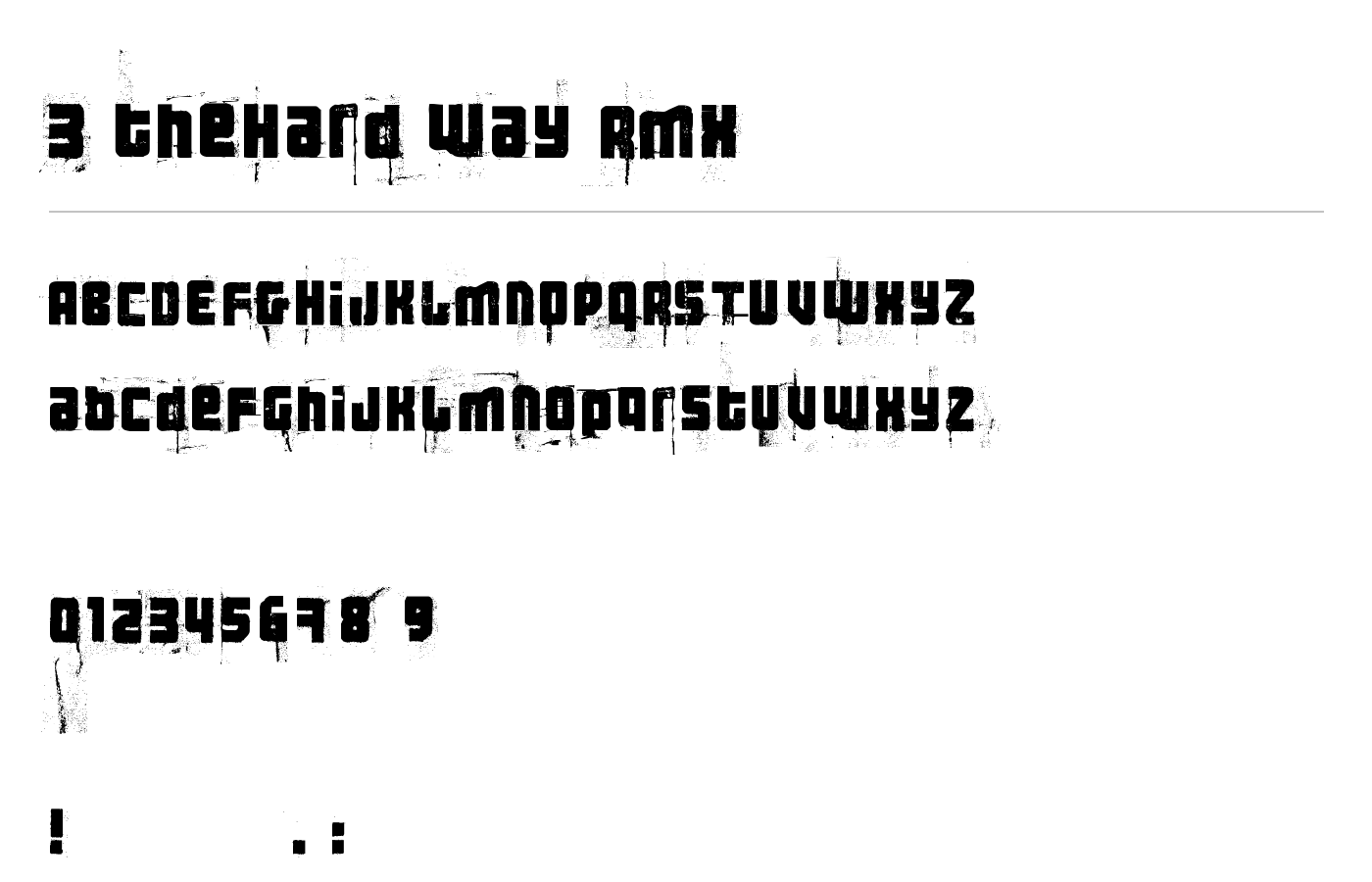
3 theHard way RMX is a bold, condensed sans serif font with a gritty, distressed texture that gives it a strong urban and industrial vibe. Its blocky letterforms combined with uneven edges and ink splatter effects make it ideal for edgy designs, streetwear branding, posters, and headlines aiming to convey toughness and raw energy. This font stands out with its rugged personality while maintaining good readability in bold display uses.
3 theHard way RMX Font